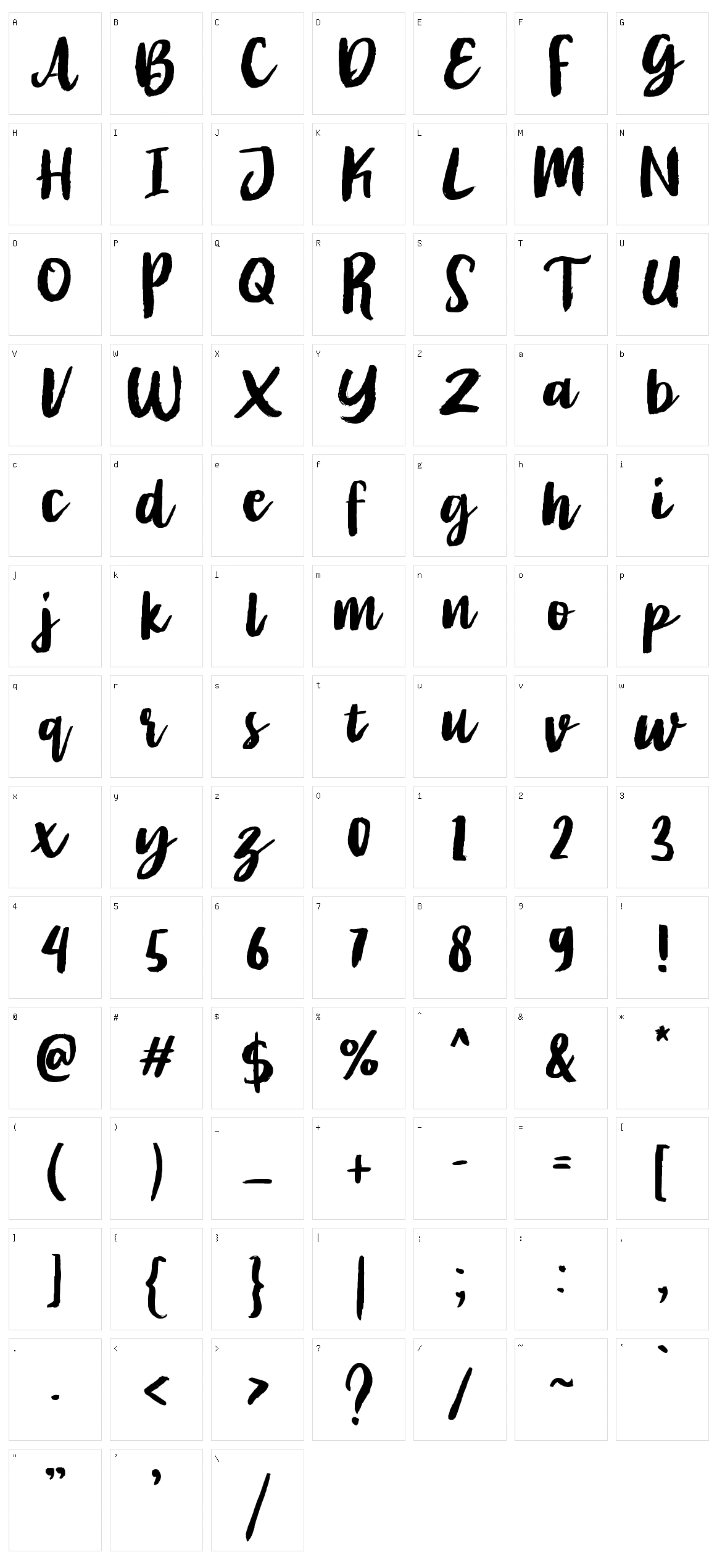
The free font Friend Forever is carefully designed by Fontherapy | Kalifont Studio, showcasing a thoughtful balance of creativity and usability and falls under the Script font style. When you download the ZIP file, it contains only 115.14 KB of font files, making it lightweight and quick to download. Please review the license details below to understand permitted usage and distribution rights. If license information is not available, we recommend using this font for personal projects only or contacting the author directly for commercial usage permissions.